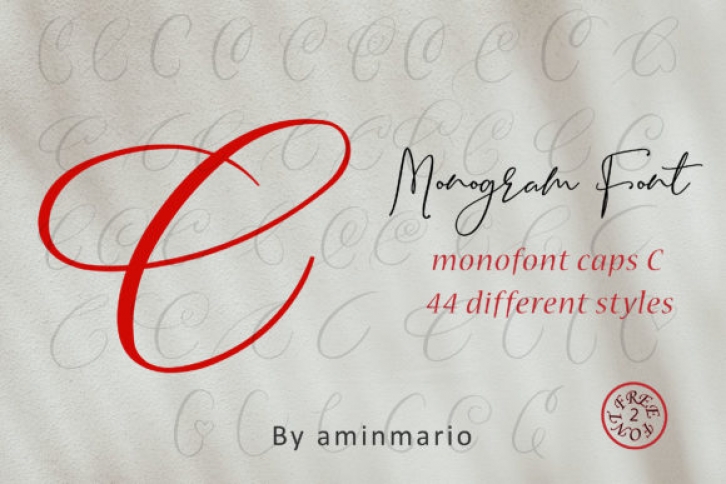
This MONOGRAM is natural handwriting of capital C with 36 different styles.
This is not for writing words or sentences, but for monograms. Bonus 2 Font that contains the uppercase and lowercase to support it.